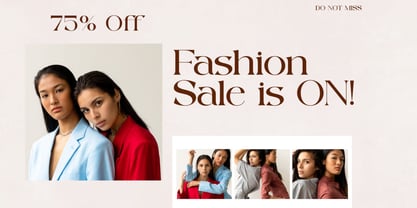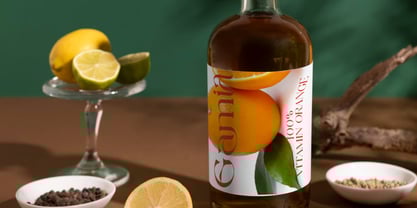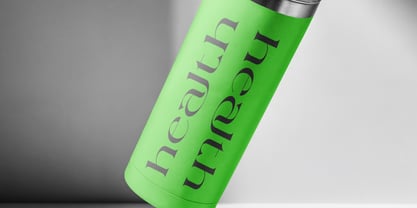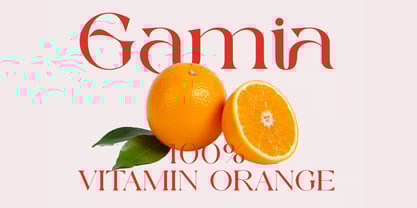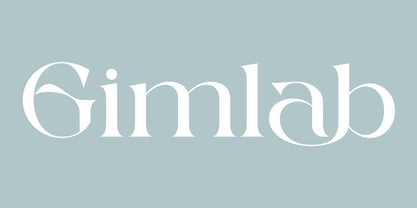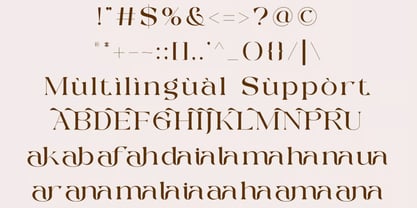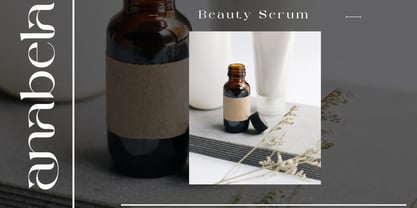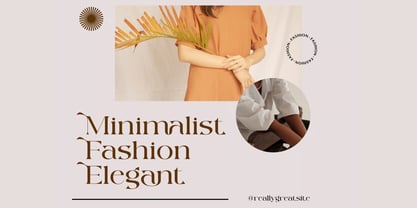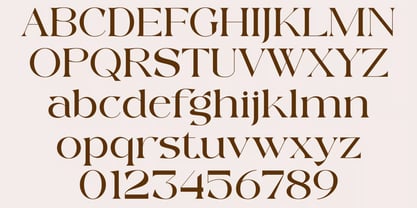
Gimlab
by Hasnat Studio
The Gimlab Font Family was designed by Hasnat Khan and published by Hasnat Studio. Gimlab contains 1 styles. More about this family
Gimlab is an elegant, modern, and beautifully crafted serif typeface designed to infuse sophistication and luxury into your creative projects. With its minimalist structure, refined curves, and clean composition, Gimlab offers a classy, contemporary, and high-end aesthetic—ideal for designers seeking typography that stands out with polished elegance. Its distinctive uppercase letters, stylish alternates, and refined ligatures make Gimlab incredibly versatile and expressive. Whether you’re designing wedding stationery, brand identities, websites, social media quotes, magazines, or modern logos, Gimlab brings an unmistakable sense of clarity and class to every layout. ✿ Key Features: Elegant Serif Design: A blend of minimalism, luxury, and contemporary beauty. Stylish Alternates & Ligatures: Unique character variations to customize your typography. Distinctive Uppercase A–Z: Classy and well-crafted capital letters for striking headlines. Clean & Modern Aesthetic: Perfect for both high-end branding and refined editorial design. Excellent Readability: Works smoothly in both digital and print projects. ✿ Perfect For: Logos & Branding: Build modern, luxurious, and memorable brand identities. Wedding Invitations: Add elegance and sophistication to stationery and announcements. Business Cards & Greeting Cards: Create eye-catching, premium-quality print designs. Magazines & Editorials: Ideal for stylish headlines and clean typographic layouts. Social Media Content: Enhance quotes, posts, and promotional graphics with modern elegance. Websites & Blogs: Bring a minimal and classy aesthetic to digital interfaces. Elevate your designs with Gimlab — a modern serif typeface that seamlessly blends luxury, clarity, and creativity to enhance every project you undertake.
Designers: Hasnat Khan
Foundry: Hasnat Studio
Gimlab